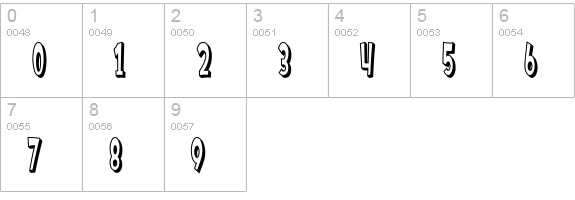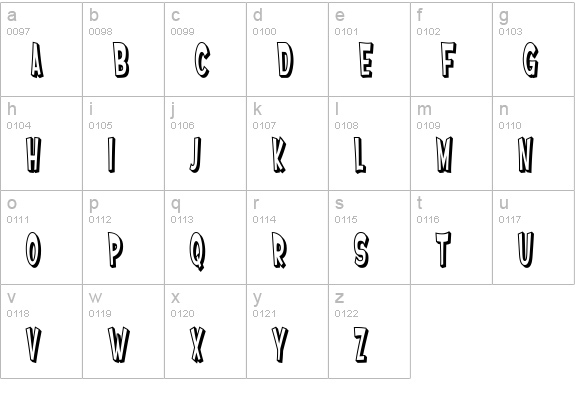
SF Ferretopia Shaded Font Details
SF Ferretopia Shaded font is a captivating and unique typeface that will bring a touch of whimsy and playfulness to any design project. This font is the perfect choice for those looking to add a dash of personality and charm to their designs. With its elegant, yet slightly quirky, letterforms, SF Ferretopia Shaded font is sure to grab attention and make a lasting impression. Its carefully crafted strokes and curves create a delightful visual experience that is both pleasing to the eye and highly legible. The shading effect adds depth and dimension to the letters, giving them a three-dimensional appearance that stands out on any background. Whether used for headlines, logos, invitations, or any other creative endeavor, SF Ferretopia Shaded font will make your text pop and come alive. But what sets SF Ferretopia Shaded font apart from other fonts is that it is freely available to download at FontsMarket.com. Yes, you read that right – it's completely free! Now, you can enjoy the beauty and versatility of this exceptional font without breaking the bank. So, whether you're a professional designer, a hobbyist, or simply someone who appreciates good typography, SF Ferretopia Shaded font is a must-have in your font collection. Download it today from FontsMarket.com and unleash your creativity with this charming and captivating typeface.